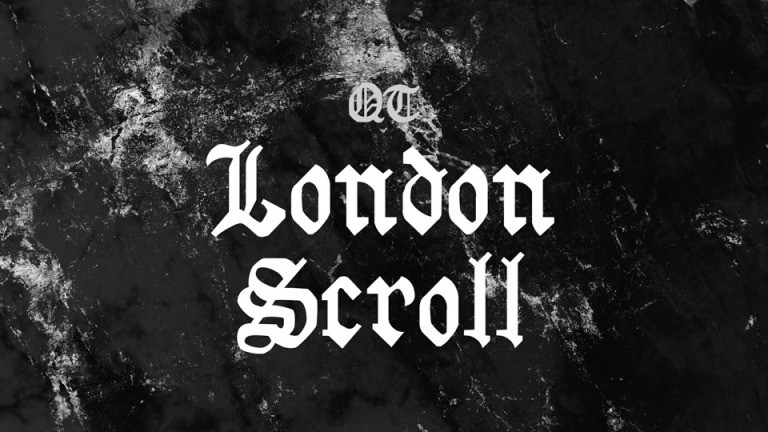
London Scroll Blackletter Font
London Scroll is a decorative blackletter typeface belonging to the Old English category. London Scroll has thicker hairline strokes than normal Old English, a less sharp, warmer feel than lettering scripted with a pen.